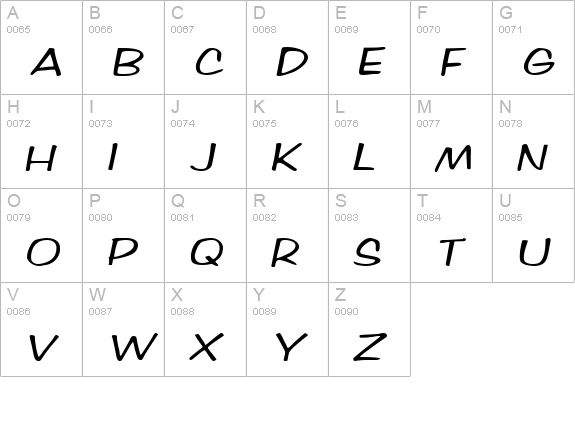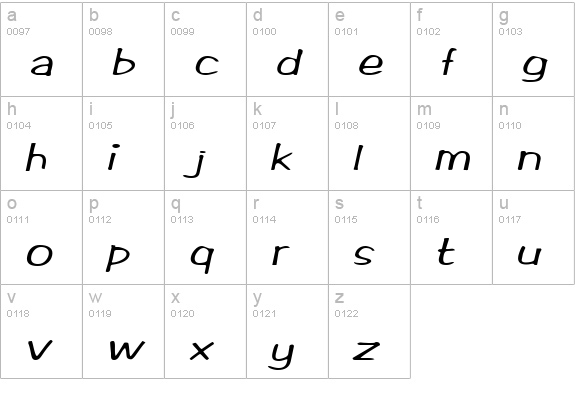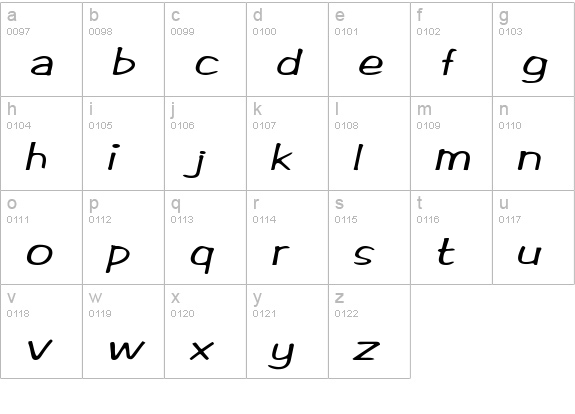
Marlo Bold Italic is a strong, high-contrast, italic variant in the Marlo typeface family \xE2\x80\x94 well suited to headlines, attention-grabbing titles, and strong calls-to-action.
Marlo Bold Italic font is a sophisticated and elegant typeface that exudes confidence and modernity. Its bold and italicized design adds a touch of uniqueness and flair to any project, making it perfect for headlines, logos, branding materials, and more. With its clean lines and carefully crafted letterforms, Marlo Bold Italic font is both legible and eye-catching. It effortlessly combines the traditional characteristics of a bold typeface with a contemporary twist, making it suitable for a wide range of applications. One of the most exciting aspects of Marlo Bold Italic font is that it is free to download. FontsMarket.com, a leading platform for font enthusiasts, offers this amazing typeface completely free of charge. This means that designers, creatives, and typographers can unleash their creativity without any financial constraints. Whether you are working on a personal project or a professional assignment, Marlo Bold Italic font will undoubtedly elevate your designs to new heights. Its versatility allows it to adapt to various contexts, ensuring that your message is conveyed with style and impact. So why wait? Download Marlo Bold Italic font today and explore the endless possibilities it offers. FontsMarket.com is your go-to destination for high-quality fonts, and with Marlo Bold Italic font, you can enhance your designs effortlessly and freely.